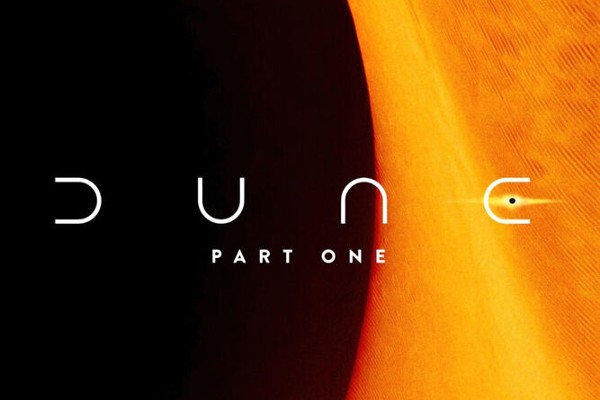
Dune is a Hollywood blockbuster movie that was first released in 2021, and is best described as being a captivating sci-fi epic directed by Denis Villeneuve. The film stars Timothée Chalamet as Paul Atreides, Rebecca Ferguson as Lady Jessica, and Oscar Isaac as Duke Leto, and it takes us to the arid world of Arrakis. Here, the rare spice melange serves as the focal point of a complex, galaxy-wide power struggle, all set against a backdrop of stunning landscapes and high-stakes political drama. There is also a “DUNE: Part Two” that is scheduled to be released in December 2023. Promotional material for this 2nd Dune movie shows that the movie logo uses the same font as the first one.
As for the original Dune movie logo, it’s one that is immediately recognisable. Rendered in Albertus Light by font designer Berthold Wolpe, the lettering oozes an elegant, almost ancient charm. The font, a serif typeface, is set against a minimalist background, punctuated by well-defined, bold strokes. The colors, typically in subdued gold or metallic shades, amplify the logo’s ethereal quality. For those eager to replicate this look, a near-perfect alternative is the Dune Rise font by Jesta Designs. I can vouch for the fact that both fonts are available in TTF format and are versatile tools for crafting graphics, images, posters, and designs that echo the iconic “DUNE” aesthetic. Whether you’re a die-hard fan of the movie or a typography enthusiast, these font families open up a sandbox of creative possibilities for you.